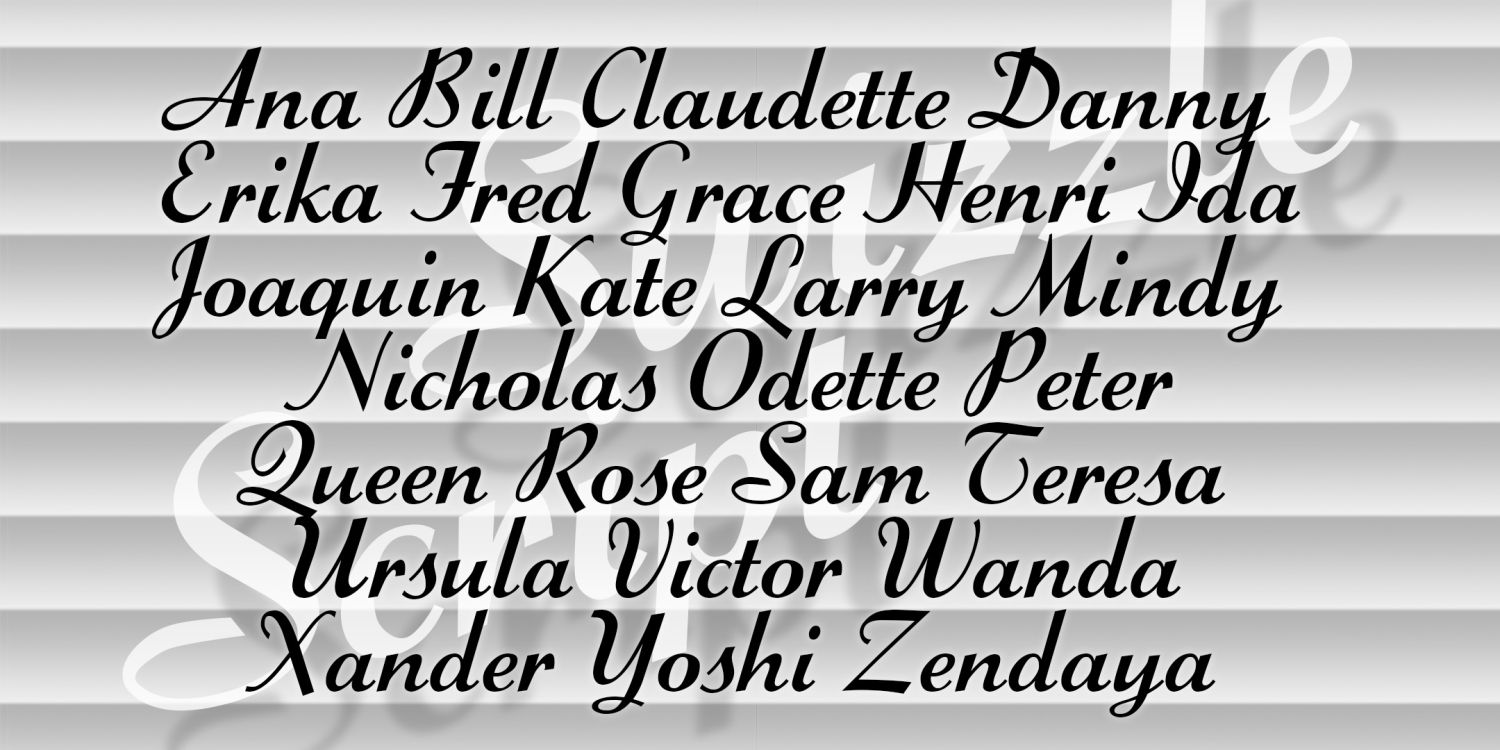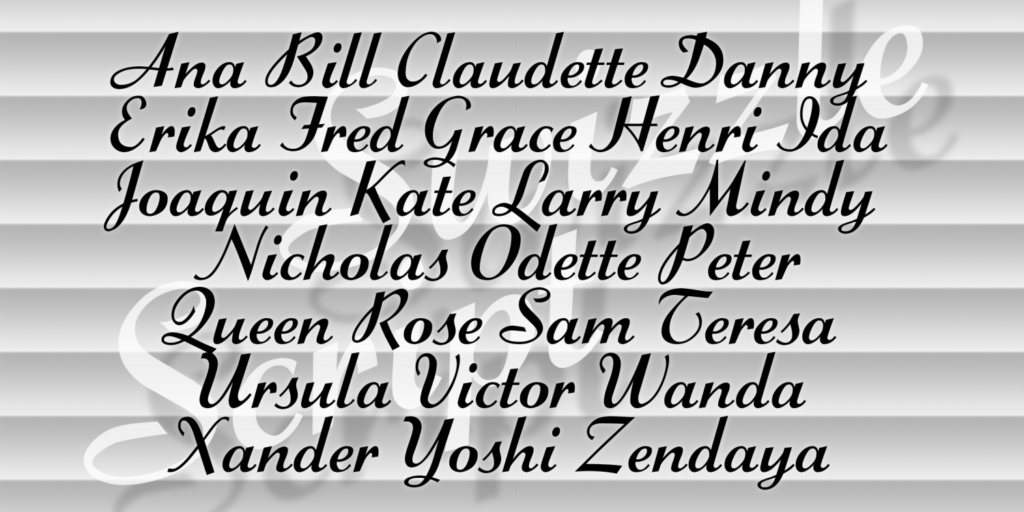
Swizzle Script
About Swizzle Script
SWIZZLE SCRIPT was inspired by the classic analog font "Stylescript", designed by Sol Hess in 1940 for the Lanston Monotype Company. Swizzle Script differs from other similar scripts of the era—such as Trafton and Corone—in its boldness,…